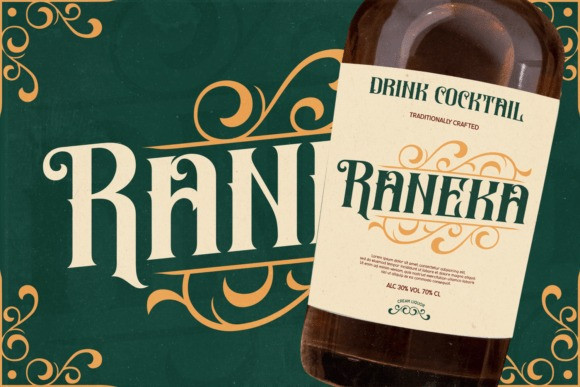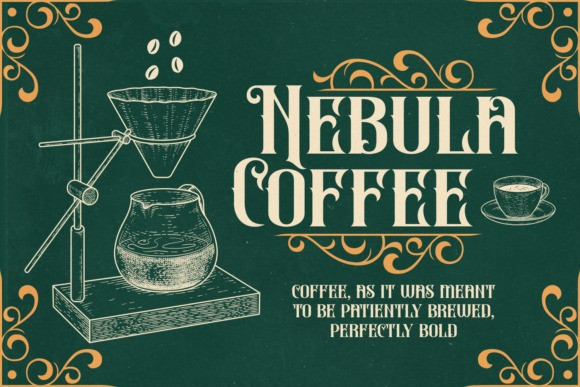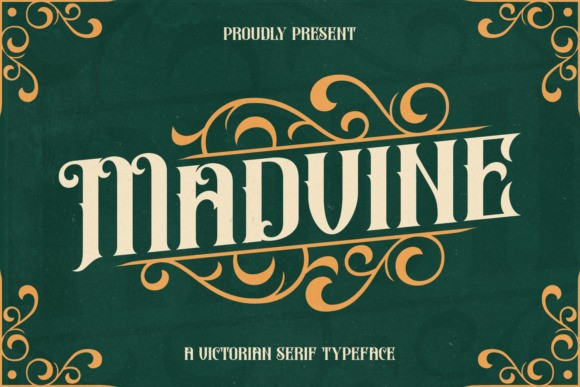
Madvine Font
Madvine Font, a Victorian serif typeface. The design, complete with ornate corner details, perfectly captures the decorative and elegant aesthetic of the Victorian era, making it ideal for vintage-inspired branding and display purposes.